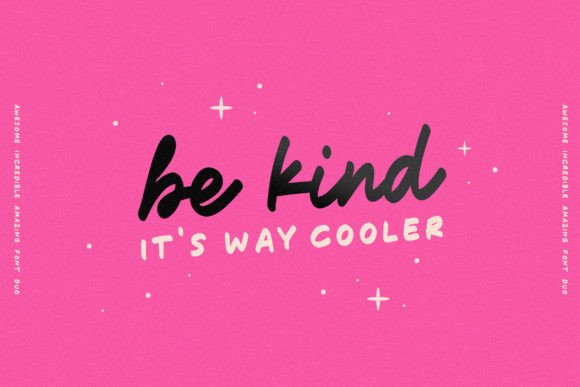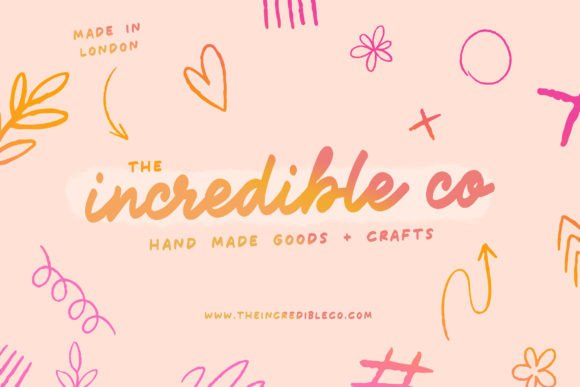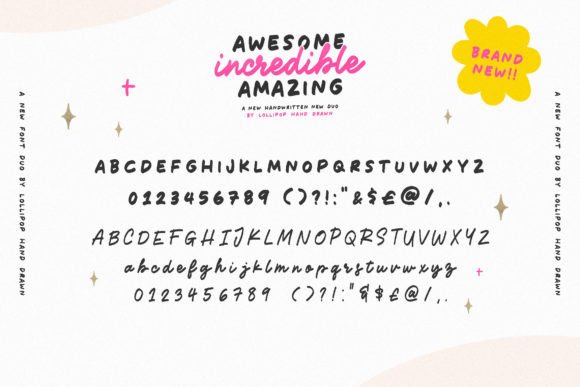
Introduction to Awesome Incredible Amazing Font
Awesome Incredible Amazing is an exquisite handwritten font, meticulously designed to become a true favorite.
Fall in love with it and make your projects look outstanding .
Key Features of Awesome Incredible Amazing Font
Why Choose Awesome Incredible Amazing Font?
Awesome Incredible Amazing Font offers exceptional quality and versatility, making it a valuable addition to your design toolkit. Whether you’re creating for personal projects or commercial use, Awesome Incredible Amazing Font delivers professional results.